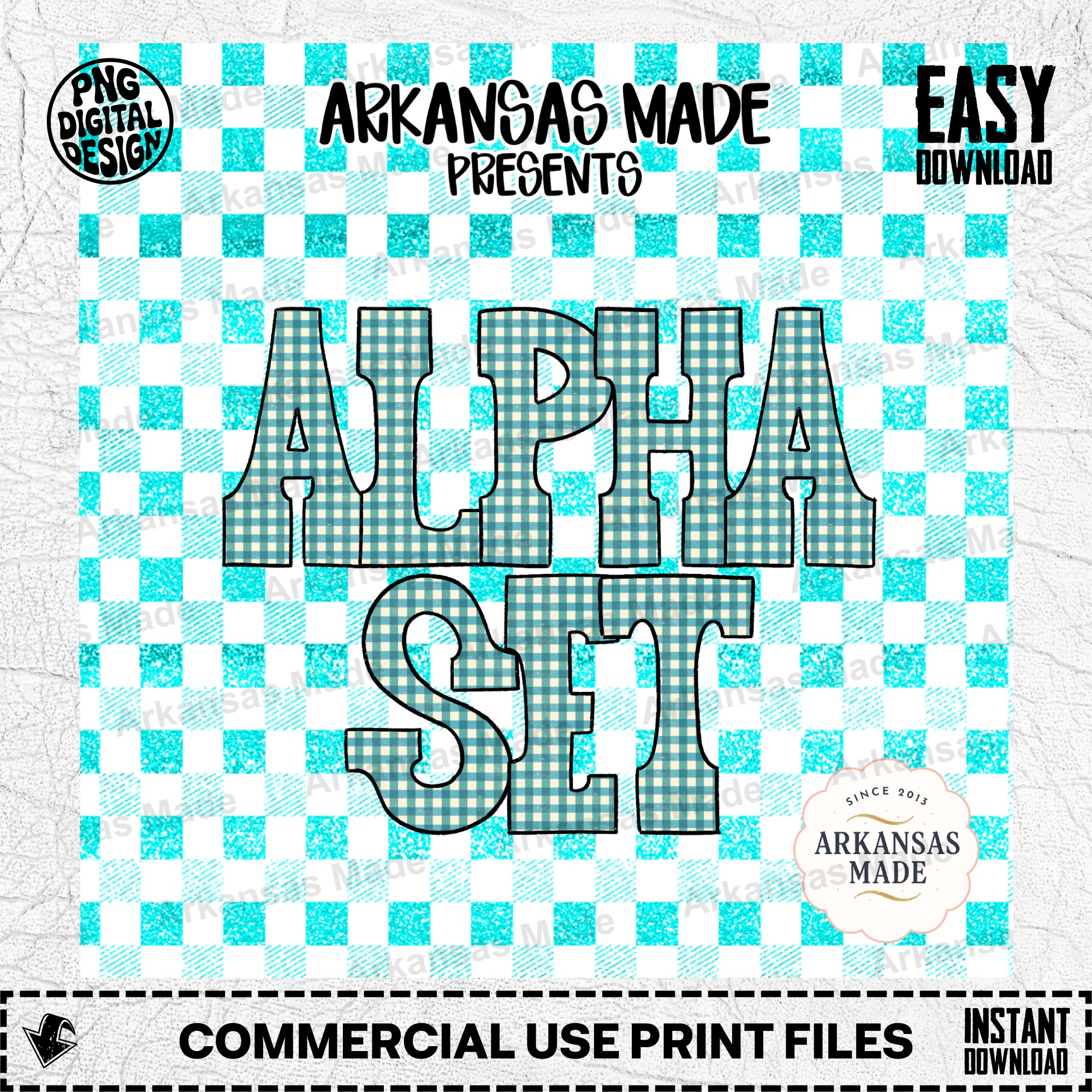
Teal Gingham Alphabet PNGs Bundle | Buffalo Plaid Digital Letters Set for Sublimation Crafting | Farmhouse Rustic Monogram Font
Get creative with our Teal Gingham Alphabet PNGs Bundle, featuring charming buffalo plaid digital letters for all your crafting needs! These farmhouse-inspired rustic letters are perfect for sublimation, custom monograms, personalized gifts, and DIY projects. Ideal for crafters, small business owners, and anyone who loves a cozy, preppy aesthetic. Use them for nursery decor, t-shirts, tumblers, or unique event signage.